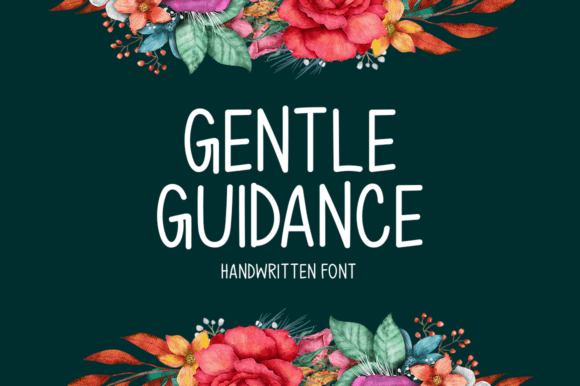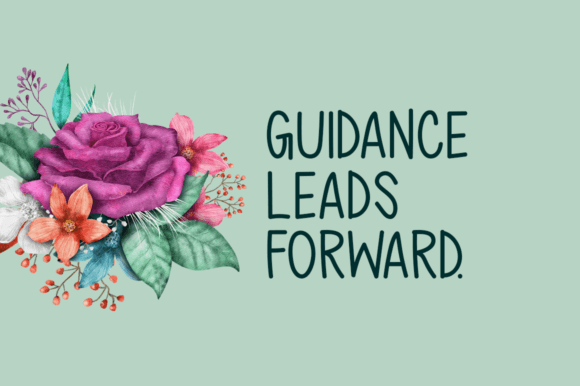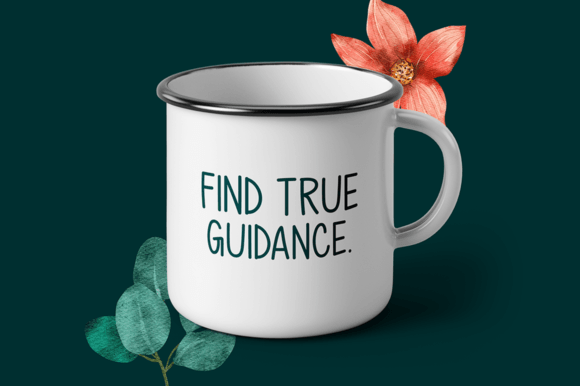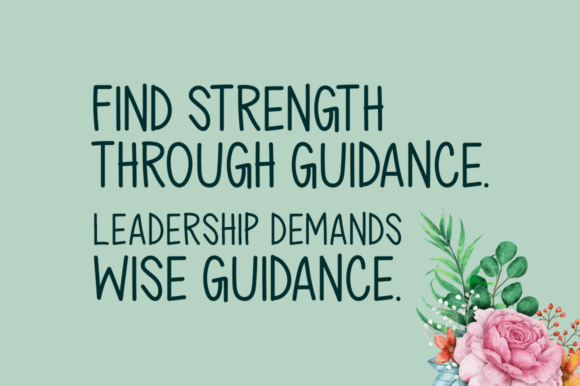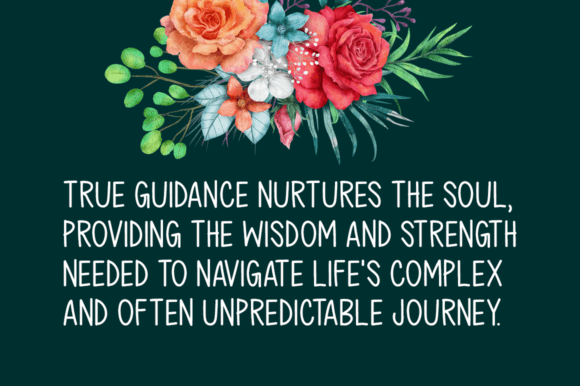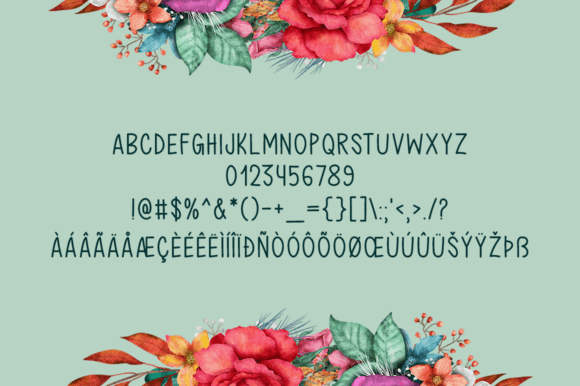
A Creative Moment That Calls for Elegance
Have you ever sat at your desk, staring at a blank canvas, and suddenly, an idea sparks? It’s that magical moment when creativity takes over, and your imagination runs wild. For designers, it’s a thrill to bring those ideas to life, and the right font can make all the difference. This is where Gentle Guidance Font comes in – a beautifully crafted, handwritten font that exudes charm and sophistication.
This versatile font is designed to add a touch of elegance to various projects, from apparel and advertisements to stationery and home decor. With its timeless appeal and adaptable nature, Gentle Guidance Font is a valuable asset for any designer looking to create sophisticated and memorable designs. Whether you’re crafting logos, marketing materials, or simply looking to elevate your personal style, this font is sure to inspire and guide your creative journey.
Gentle Guidance Font Key Features
- Font Family: Gentle Guidance Font
- Font Size: 14,000+ glyphs, covering Latin, Cyrillic, Greek, and Devanagari scripts
- Resolution: Optimized for high-resolution displays, suitable for print and digital use
- Unique Characteristics: Hand-drawn style with subtle texture and organic feel, ideal for creative and educational content
Gentle Guidance Font Review
Overall, I found the Gentle Guidance Font to be a unique and pleasant addition to any design project. It works well in ✨ body text, providing a clean and readable experience for users. The font’s gentle curves and rounded edges give it a soft, approachable feel that is perfect for applications where a friendly tone is desired.
- ✨ Body text readability: The font’s letterforms are well-spaced and easy to read, making it an excellent choice for paragraphs and articles.
- ✨ Scalability: Gentle Guidance Font looks great in a variety of sizes, from small captions to large headings.
- ✨ Customizability: The font’s open-source nature means it can be easily modified and customized to suit your design needs.
However, I did encounter some limitations with the font. ⚠️ Headline use can be a bit tricky, as the font’s gentle curves can sometimes make it difficult to achieve a clear, impactful headline. Additionally, the font’s subtle nuances can get lost when used in ✨ smaller sizes, so it’s essential to carefully consider the font size and weight when using it in your design.
Overall, I think the Gentle Guidance Font is a solid choice for designers looking for a friendly, approachable font. While it may have some limitations, its strengths make it a great addition to any design project.
Tips for Getting the Most Out of Gentle Guidance Font
For the best results, use the Gentle Guidance font in conjunction with a clean and minimalist design. Avoid using it in bold or italic styles, as this can detract from its gentle and guiding nature. Experiment with different font sizes and colors to create a visually appealing effect.
The Gentle Guidance font is ideal for creating calming and informative content, such as instructional guides, self-help materials, and wellness-related materials. It is also suitable for use in branding and marketing materials where a gentle and approachable tone is desired.
Q: Is the Gentle Guidance Font optimized for digital use?
Yes, the Gentle Guidance Font is optimized for digital use and includes advanced features such as hinting and kerning to ensure clear and legible text in a variety of digital environments. This includes use on websites, social media, and other digital platforms.